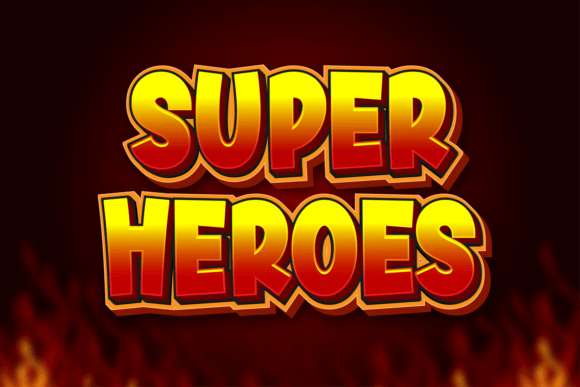
Introducing Extra Power Font: The Ultimate Display Font for Your Creative Projects
Are you on the hunt for a beautiful, cartoon-like font to elevate your designs? Look no further than Extra Power Font! This thick and cheerful display font is the perfect addition to any design library, and we’re excited to share its features and benefits with you.
The Characteristics of Extra Power Font
Extra Power Font boasts chunky characters and a friendly look that’s sure to capture the attention of your audience. Its unique design makes it an excellent choice for a variety of creative projects, from children’s books and educational materials to branding and advertising campaigns.
With Extra Power Font, you can add a playful touch to your designs and make them stand out from the crowd. Its bold and cheerful appearance is sure to evoke a sense of fun and approachability, making it perfect for designs that require a lighthearted and youthful feel.
Why Choose Extra Power Font?
So, what sets Extra Power Font apart from other display fonts on the market? Here are just a few reasons why designers and crafters love this font:
• Unique and eye-catching design: Extra Power Font’s chunky characters and friendly look make it a one-of-a-kind addition to any design library.
• Versatile: This font is perfect for a wide range of creative projects, from digital designs to print materials.
• Easy to read: Despite its bold design, Extra Power Font is surprisingly easy to read, making it perfect for headlines, titles, and short paragraphs of text.
• Cartoon-like charm: This font’s playful design is sure to bring a smile to your audience’s faces, making it perfect for designs that require a touch of whimsy.
How to Use Extra Power Font in Your Designs
Ready to give Extra Power Font a try? Here are a few ideas for incorporating this amazing font into your next creative project:
• Children’s books and educational materials: Extra Power Font is perfect for kids’ books, activity sheets, and educational materials that require a fun and engaging design.
• Branding and advertising: Use Extra Power Font to add a playful touch to your brand’s logo, packaging, or advertising campaigns.
• Digital designs: This font is perfect for social media graphics, blog posts, and website headers that require a bold and eye-catching design.
• Party invitations and decorations: Extra Power Font is a great choice for party invitations, banners, and decorations that require a fun and festive design.
Tips for Getting the Most Out of Extra Power Font
To make the most of Extra Power Font, here are a few design tips to keep in mind:
• Use it sparingly: While Extra Power Font is a beautiful and eye-catching design, it can be overwhelming if used excessively. Use it sparingly to add emphasis to your designs.
• Pair it with complementary fonts: Combine Extra Power Font with complementary fonts to create a visually appealing design.
• Experiment with colors and textures: Don’t be afraid to experiment with different colors and textures to add depth and interest to your designs.
In conclusion, Extra Power Font is a thick and cheerful display font that’s perfect for designers and crafters looking to add a playful touch to their creative projects. With its unique design, versatility, and ease of use, this font is sure to become a staple in your design library. So why wait? Give Extra Power Font a try today and see the difference it can make in your designs!